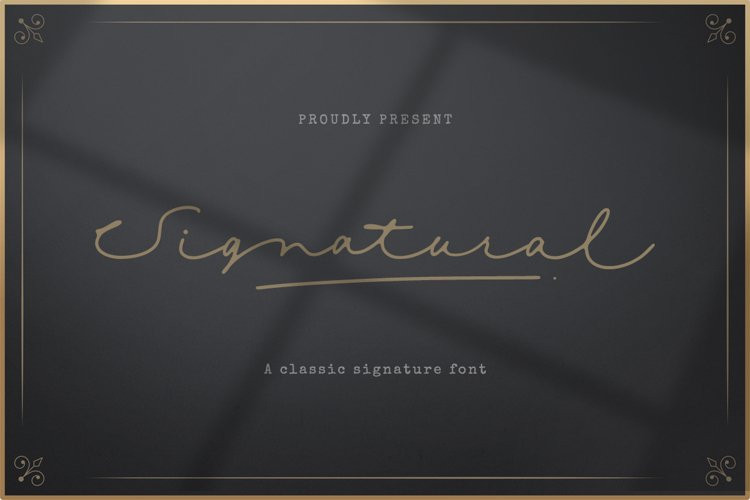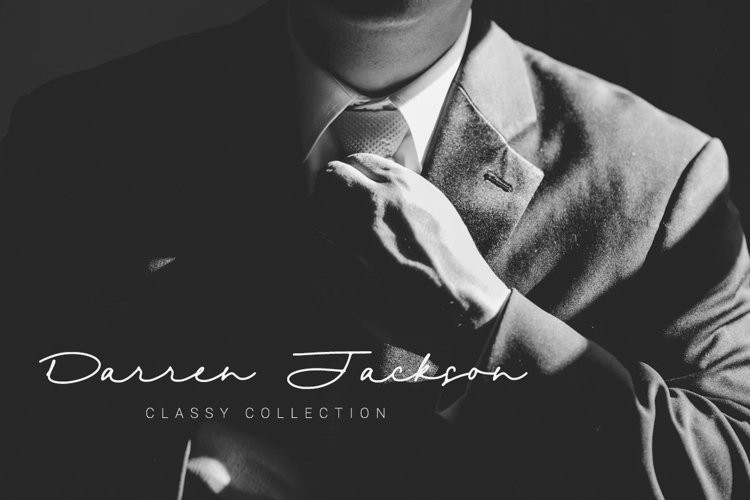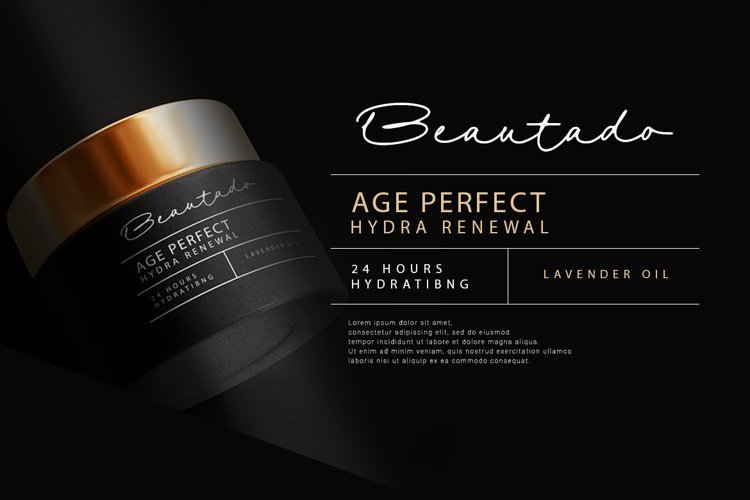
Signatural Font
Signatural FontGive your designs an classy feel. Signatural is perfectly suited to signature, stationery, logo, typography quotes, magazine or book cover, website header, clothing, branding, packaging design and more. A handwritten script font containing uppercase and lowercase characters, numerals, a large range of punctuation, International language, ligatures, stylistic alternate and swashes.